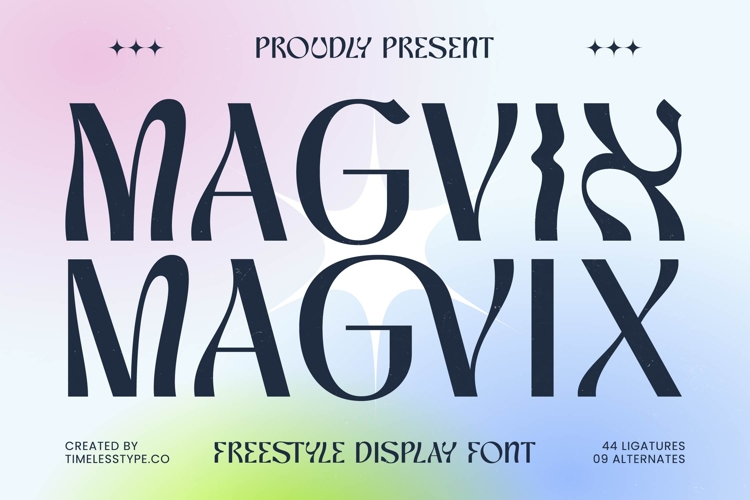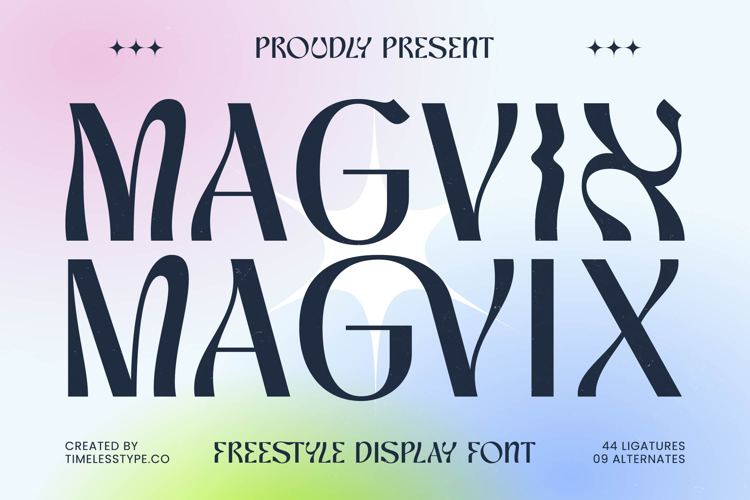
Magvix - Freestyle Display Font
Ignite your creative vision with Magvix - Freestyle Display Font, a typeface meticulously crafted to infuse your designs with unparalleled elegance and distinctive flair. This stunning display font blends vintage charm with contemporary fluidity, creating a visual narrative that immediately captures attention. Its unique contours and expressive letterforms are designed for typographic excellence and a memorable brand presence.
Elevate your visual communication with the sophisticated artistry of Magvix - Freestyle Display Font. Each character is thoughtfully designed, featuring beautiful curves and a dynamic flow that exudes confidence. With an impressive collection of 44 ligatures and 09 alternates, this font offers boundless possibilities for customisation, enabling truly unique headlines and artistic compositions. Its high-contrast strokes ensure readability while maintaining artistic integrity.
Magvix - Freestyle Display Font is perfectly suited for projects demanding refined artistry. It is ideal for luxury branding, exclusive invitations, stylish product packaging, captivating magazine covers, and impactful website headers. With its extensive multilingual support, Magvix - Freestyle Display Font adapts seamlessly across global markets, making it incredibly versatile for international projects, transcending borders with effortless style.